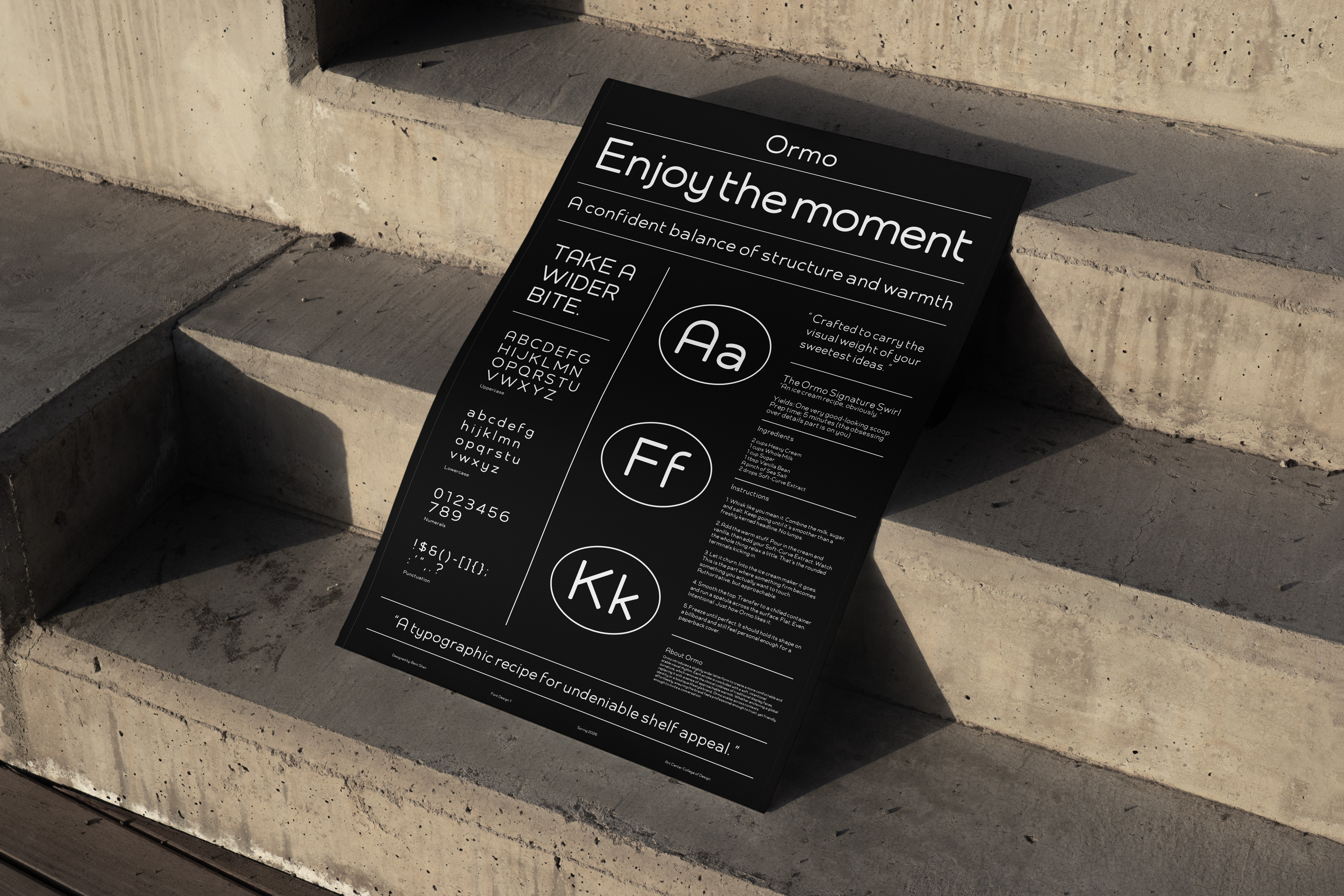
Ormo - Font Design
Ormo introduces a slightly wider letterform to create a more comfortable and stable visual rhythm. Each stroke is concluded with a soft, intentional curvature, which removes the clinical coldness of traditional display faces, replacing it with a sense of approachable warmth. Whether anchoring a global identity or a boutique lifestyle brand, Ormo scales across contexts effortlessly, ensuring the brand feels professional enough to trust, yet friendly enough to invite a conversation.